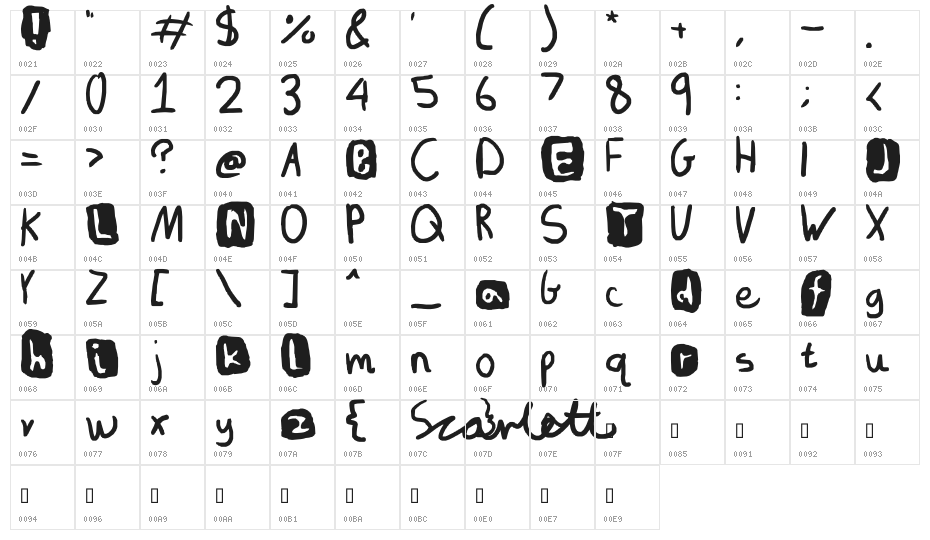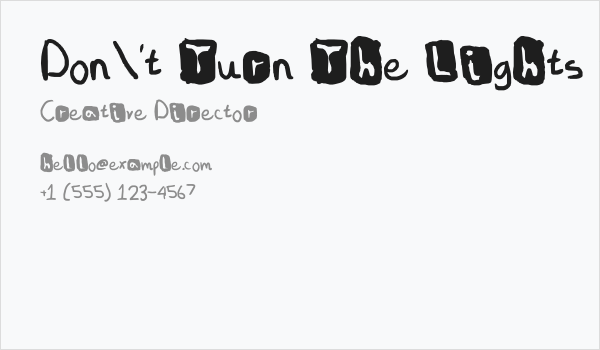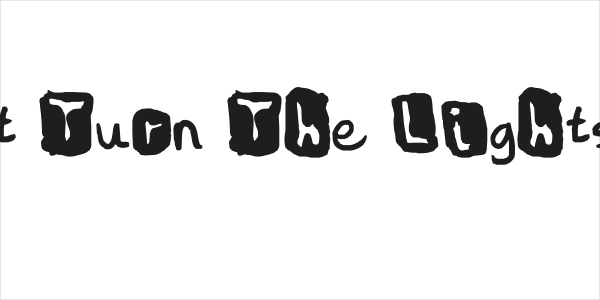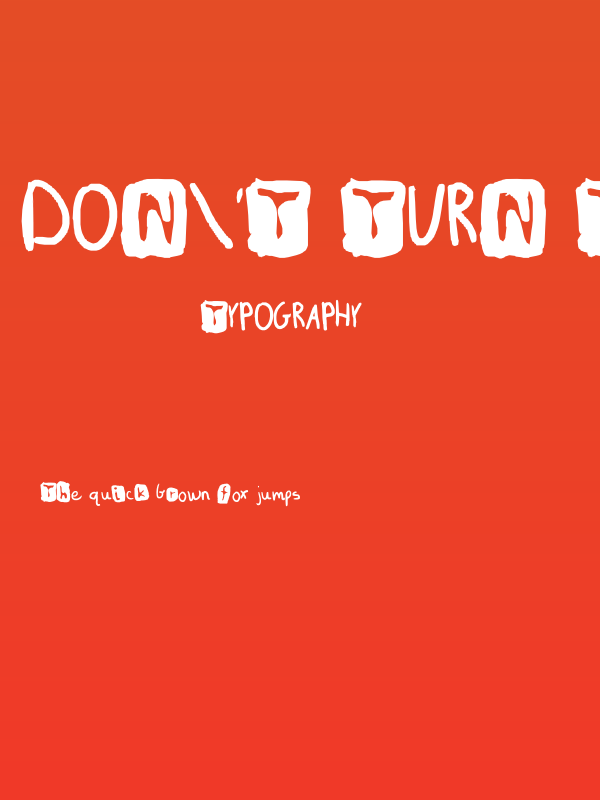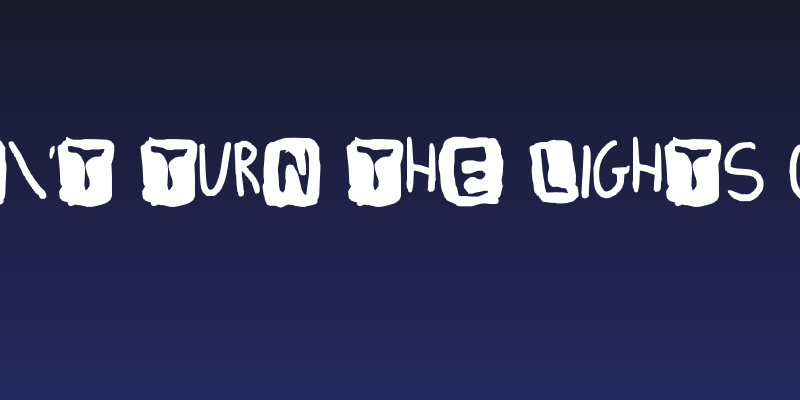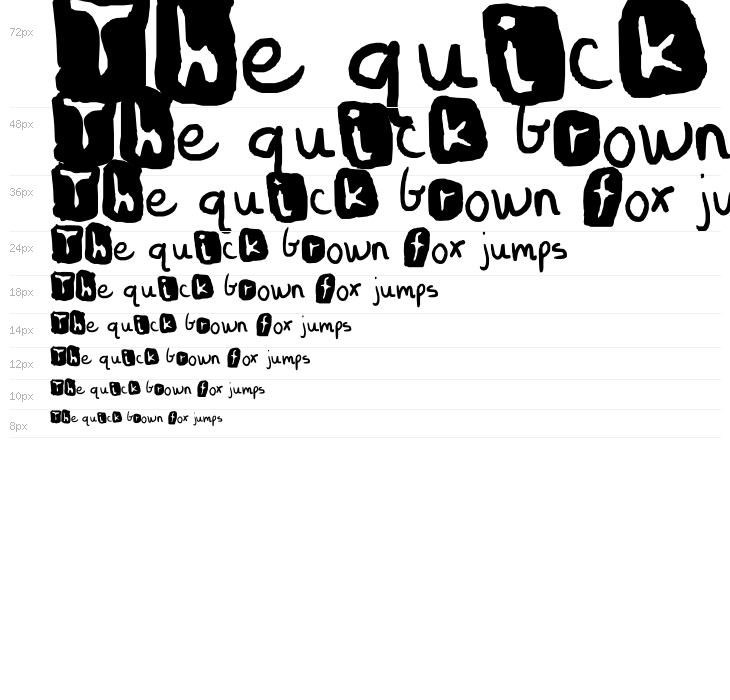
Don't Turn The Lights On! Font
Don't Turn The Lights On! Description
This font features a playful and quirky style with a hand-drawn appearance. Each character is uniquely crafted with irregular shapes and varying thickness, giving it a dynamic and lively feel. The uppercase letters are bold and prominent, often enclosed in irregular black shapes, creating a striking contrast against the white background. Lowercase letters maintain the same whimsical style, with some characters also enclosed in black shapes. Numbers and special characters follow the same design principles, ensuring consistency throughout the font. The overall look is informal and artistic, making it suitable for creative projects.
| Overall Style | Playful, Artistic |
| Use Case | Headlines, Posters, Creative Projects |
| Proposed Projects | Ideal for children's books, creative posters, informal invitations, and artistic branding projects. |